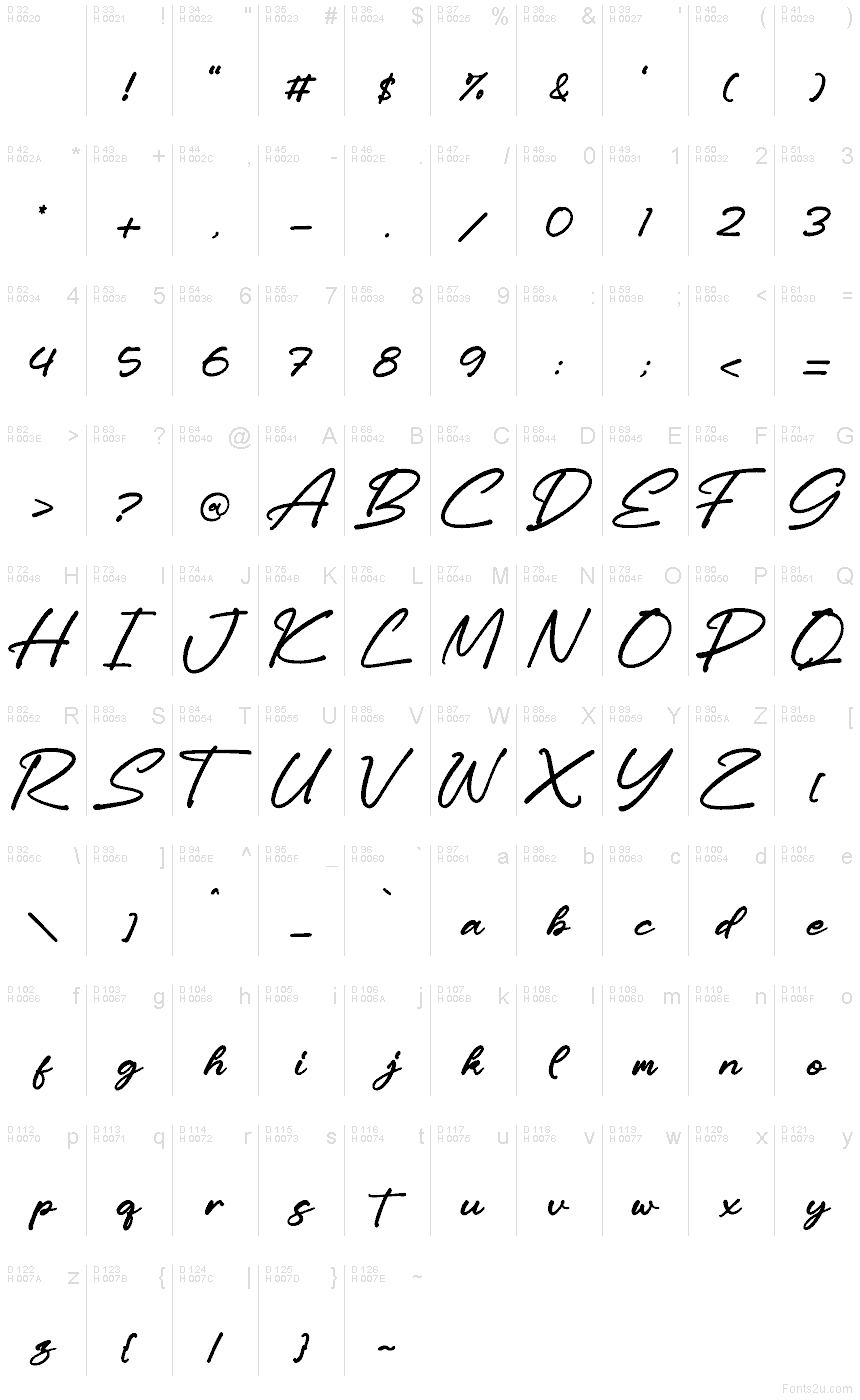
Anettasya Mottarue
Anettasya Mottarue font from Integritype Studio is a free handwritten font with a modern script style. Its elegant flowing lines and expressive curves exude sophistication and luxury, making it perfect for signature branding. This attractive typography is worthy of attention, as the end characters are carried over well by the extra strokes that give them additional value.
Suitable use cases include creating wedding invitations, product packaging, apparel prints, logos and branding designs; fashion ads; watercolor effects; magazine covers and editorials; boutique branding; marketing campaigns for hotels or cafes focused on female clientele such as salons or spas.